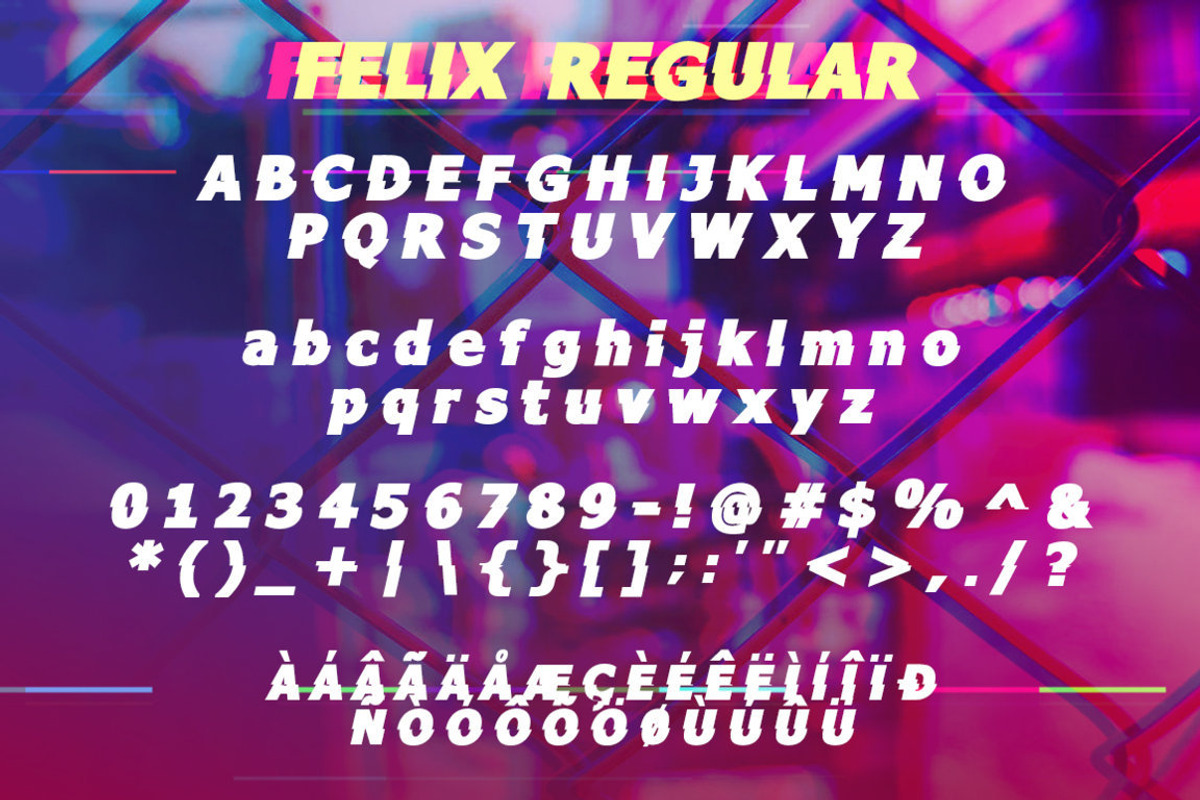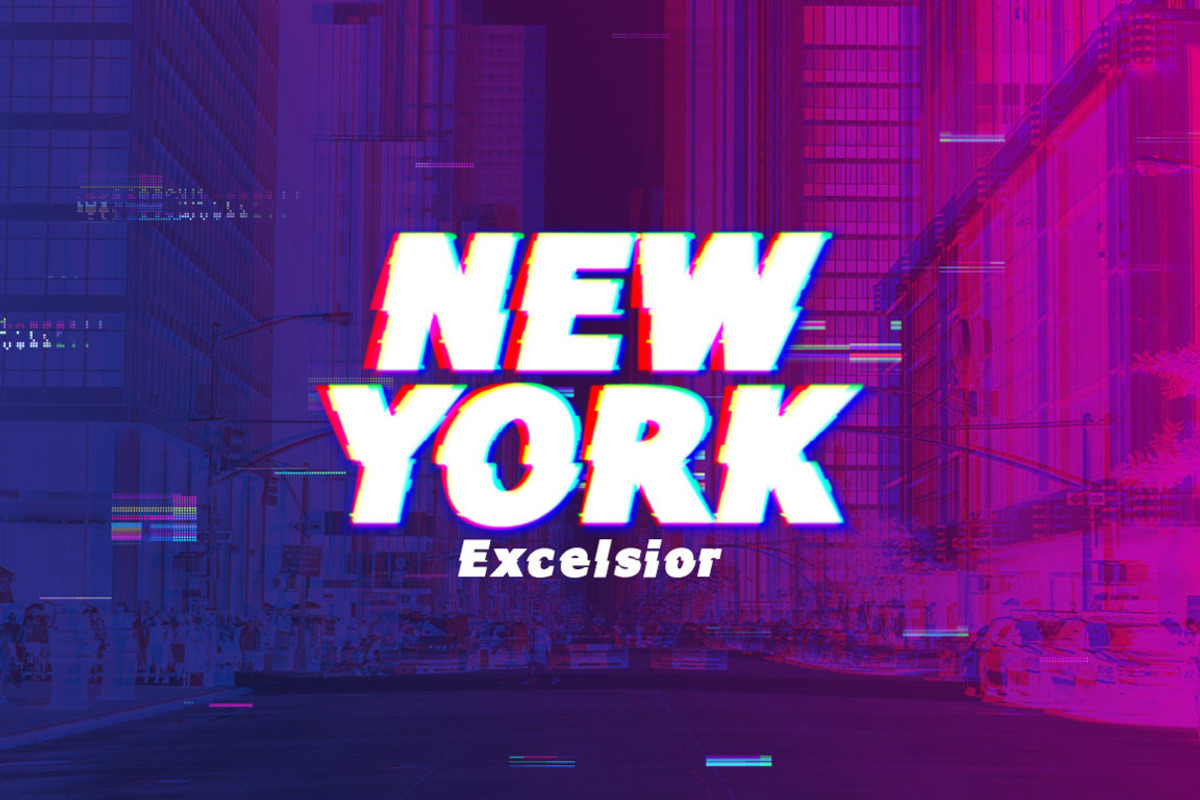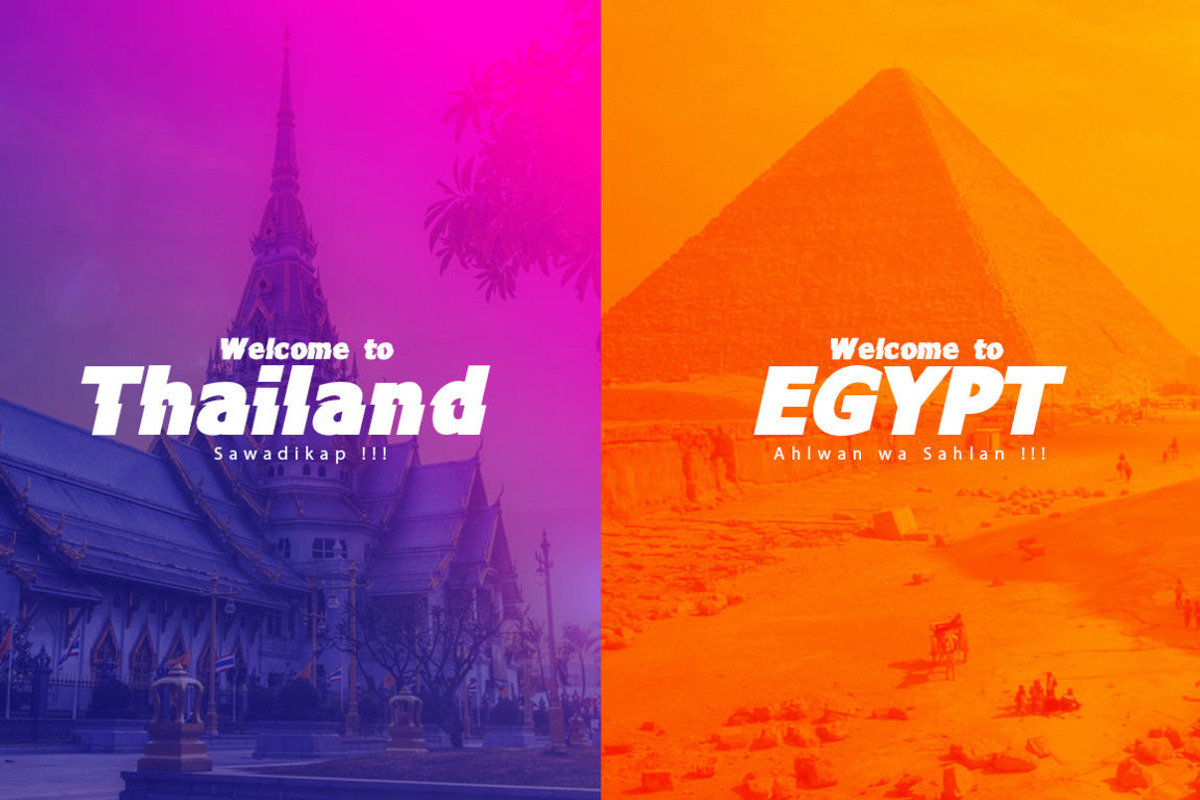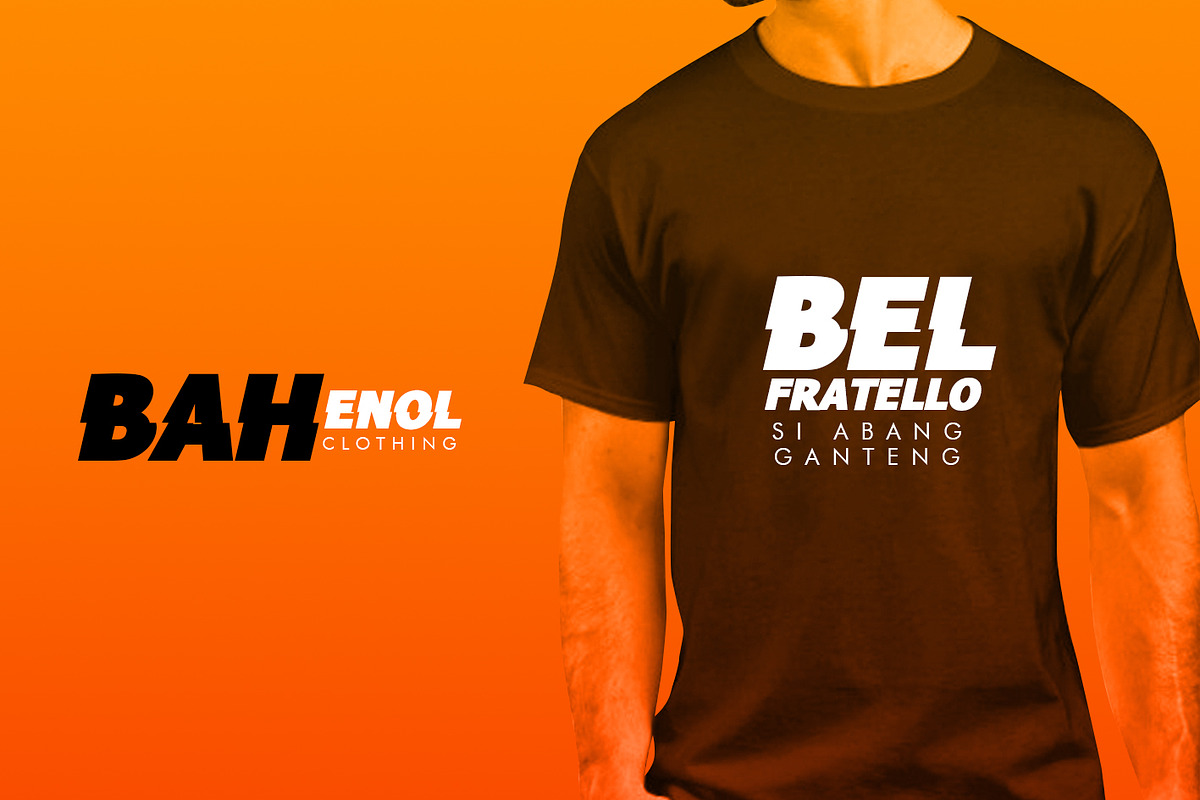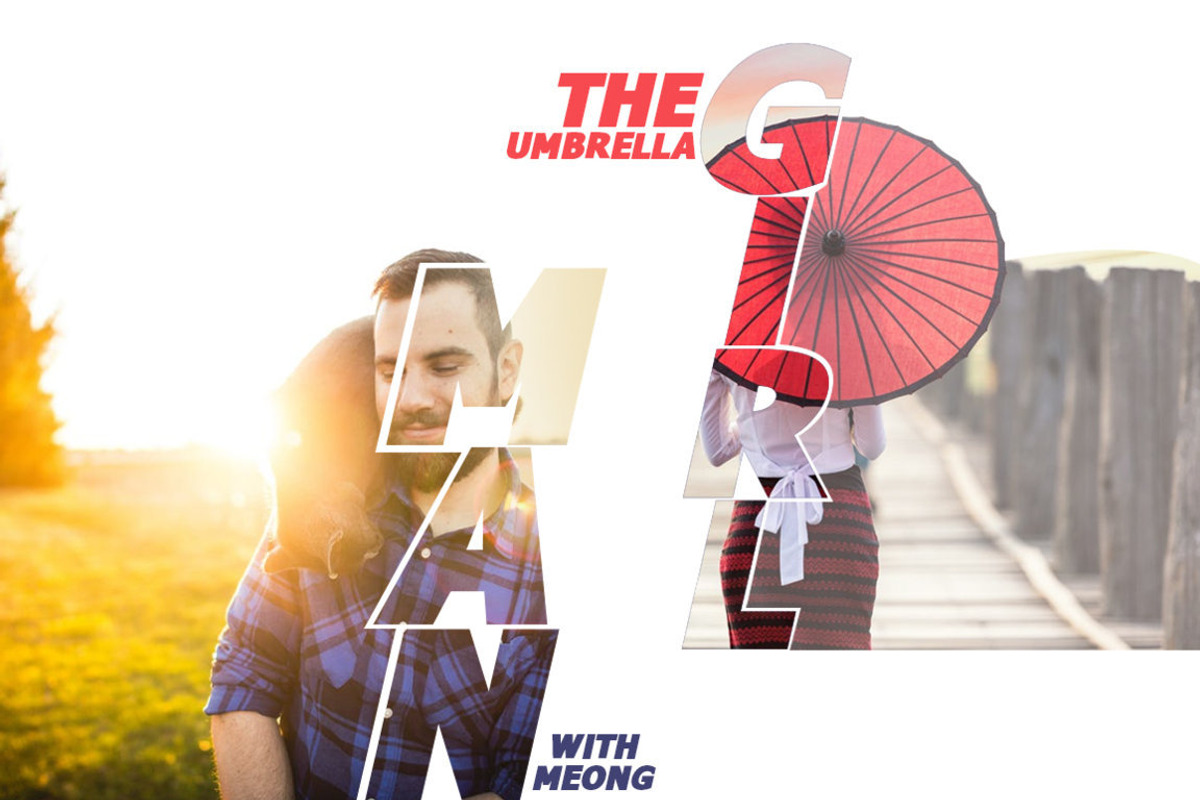
Felix Glitch Duo Font
Felix font is a sans serif type of bold and italic type. Felix has two different styles, Felix Regular in the form of horizontal pieces like glitch effect and Felix Clean. Felix font it’s perfect for , poster, logo, magazine, cover, banner, tshirt and headers, or even large-scale artwork.